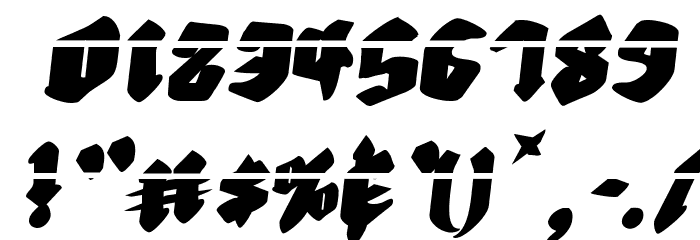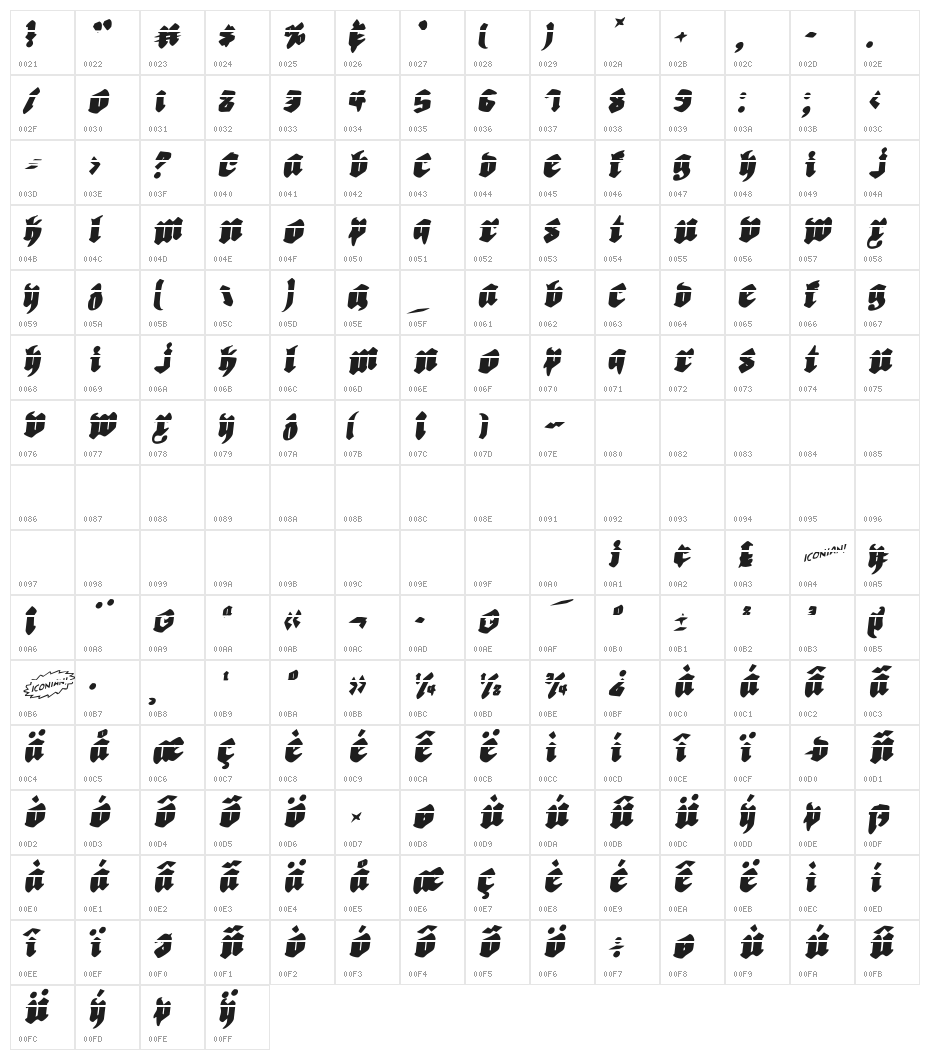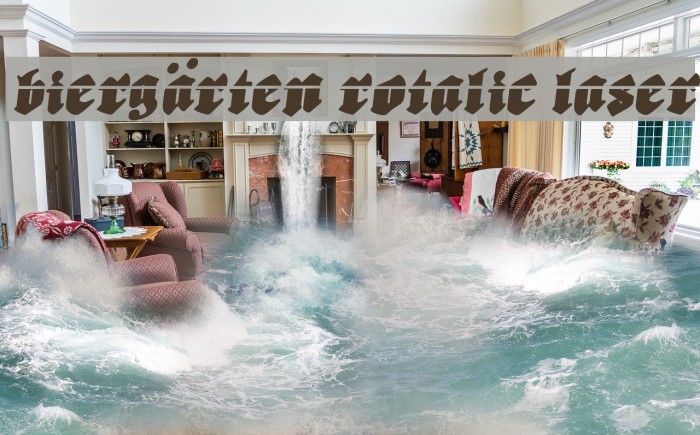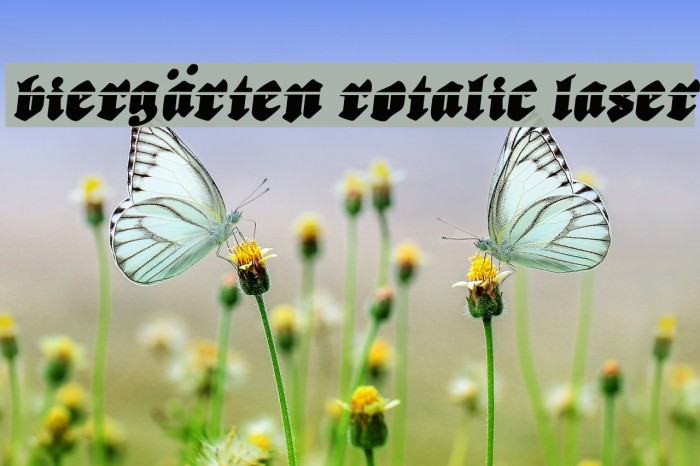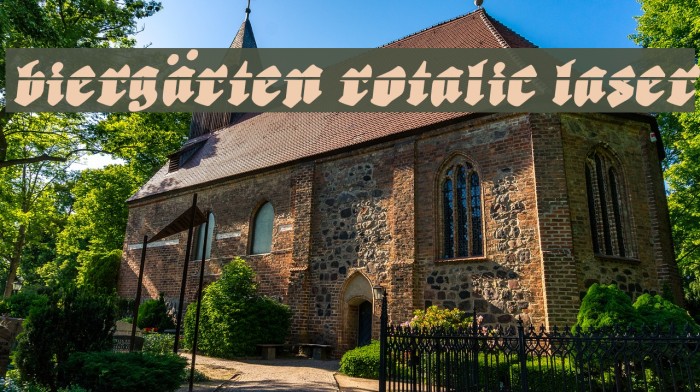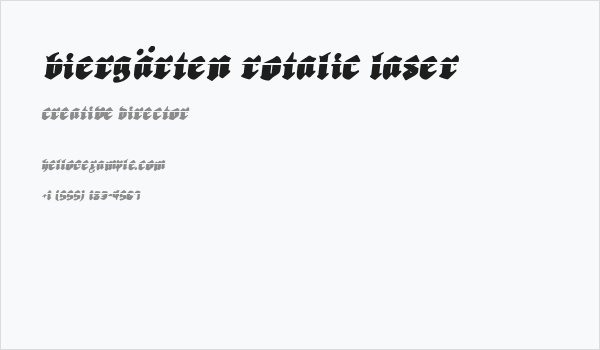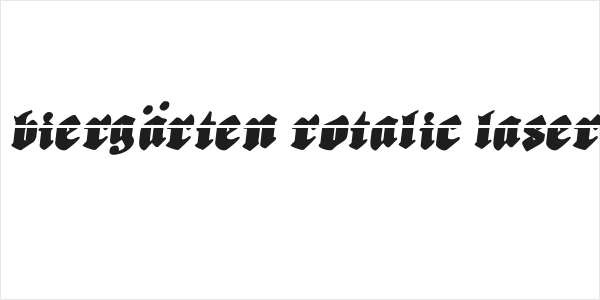
Biergärten Rotalic Laser Font
Biergärten Rotalic Laser Description
This font features a bold and striking blackletter style with a modern twist. The characters are sharply angular with a distinct gothic influence, creating a dramatic and eye-catching appearance. The uppercase and lowercase letters maintain a consistent style, with intricate details and a sense of movement. The numerals and special characters are designed to match the overall aesthetic, ensuring a cohesive look across all text elements. This font is ideal for projects that require a strong visual impact and a touch of historical elegance.
| Proposed Projects | Perfect for branding, posters, album covers, and any design needing a dramatic, historical touch. |